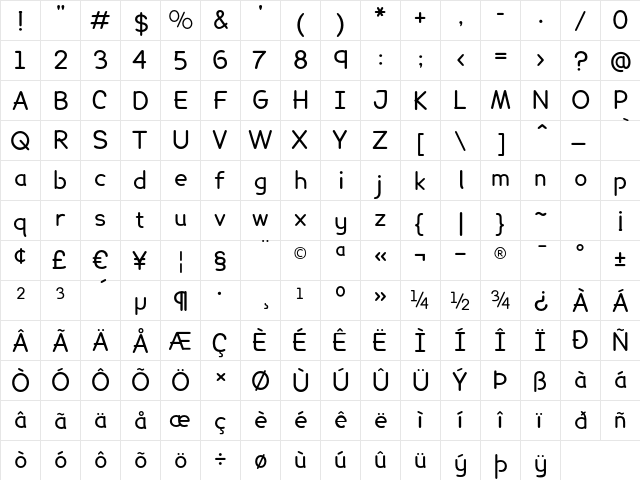
Lexia Regular
Design Context for Lexia Typeface
Lexia offers clean, dependable letterforms without strong stylistic allegiance, making it a practical choice for designers who need flexibility.
Pro Tip: Use Lexia in both headline and body roles to test its range before committing to a single application.